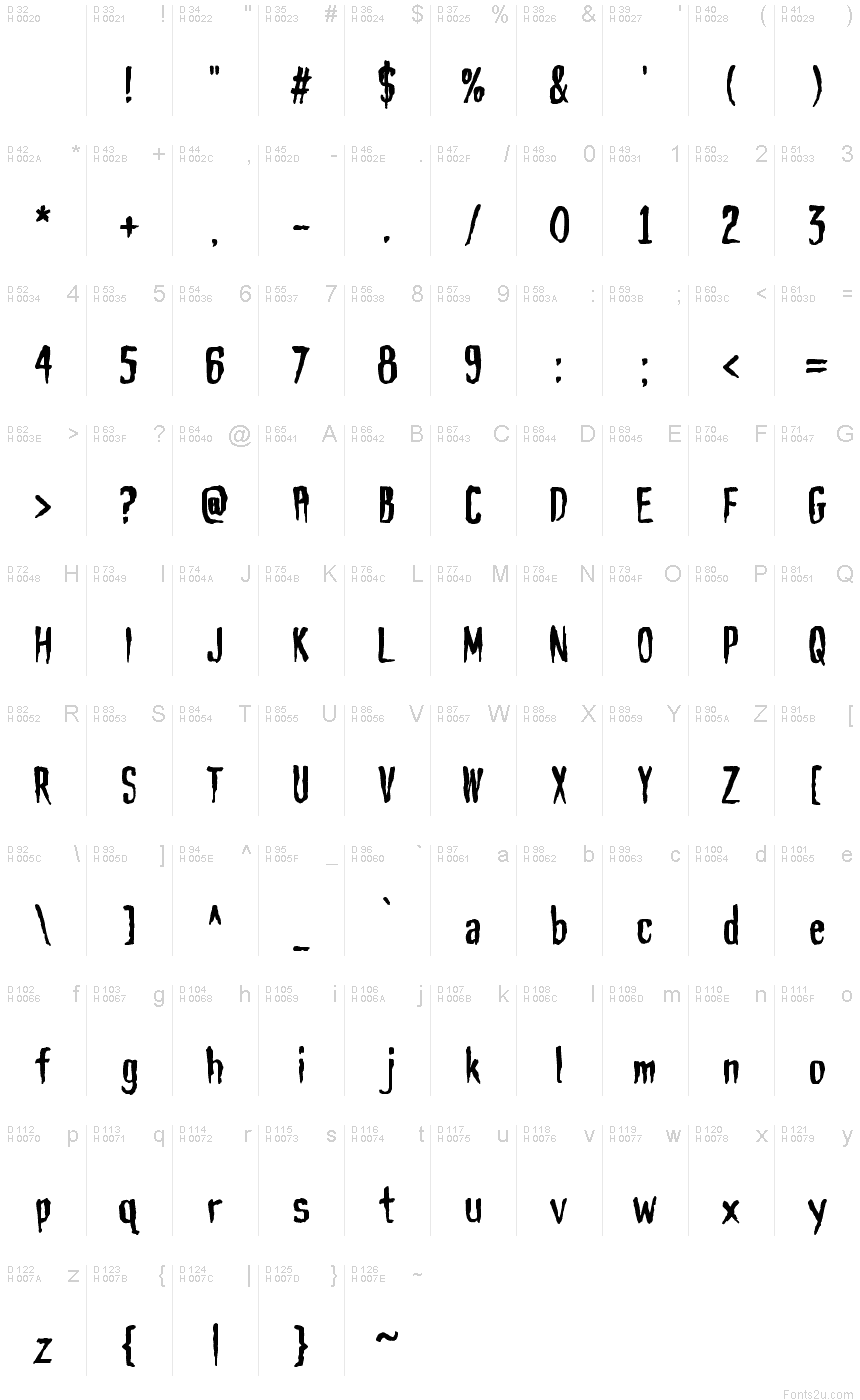
Haunt AOE
Haunt AOE font by Astigmatic is a free scary display typeface that looks like it’s been scratched onto a wall with something sharp. The letters are tall, twitchy, and a little uneven, with inky edges that feel smeared and handmade rather than clean and digital. It carries a creepy, restless energy-more haunted house and creaking floorboards than splatter horror-so your titles feel eerie without turning unreadable.
Using Haunt AOE, Halloween posters, spooky event flyers, horror zines, escape room branding, book covers, and eerie YouTube thumbnails all gain an instant chill factor. This free font works best at larger sizes where its scratchy texture can really show. Try pairing Haunt AOE with a simple sans serif for body copy to keep things legible while the headline does all the haunting.